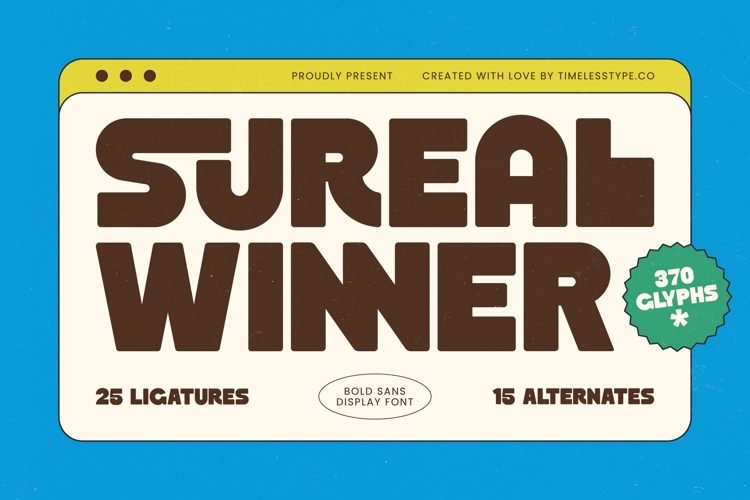
Sureal Winner - Bold Sans Display Font
Elevate your designs with audacious confidence using Sureal Winner - Bold Sans Display Font. This exceptional bold sans-serif display typeface commands attention with its robust, distinctive letterforms and subtly rounded edges, evoking a modern retro sensibility that is both impactful and approachable. Crafted for maximum visual weight, Sureal Winner - Bold Sans Display Font ensures your message cuts through the clutter, making it an indispensable asset for any project demanding a strong, memorable aesthetic.
Unlock unparalleled creative potential with the extensive design features embedded within Sureal Winner - Bold Sans Display Font. Boasting 25 sophisticated ligatures and 15 unique alternates, this font offers rich stylistic versatility, empowering designers to create truly custom and dynamic typography. With a comprehensive set of 370 glyphs, it provides the freedom to experiment and personalize, ensuring every layout feels polished and uniquely crafted, ready for any display application.
Experience truly global reach with Sureal Winner - Bold Sans Display Font, engineered for seamless international communication. With its extensive multilingual support, Sureal Winner - Bold Sans Display Font adapts seamlessly across global markets, making it incredibly versatile for international projects. This feature ensures that your impactful designs resonate with audiences worldwide, maintaining legibility and aesthetic integrity across diverse linguistic landscapes, perfect for global branding.